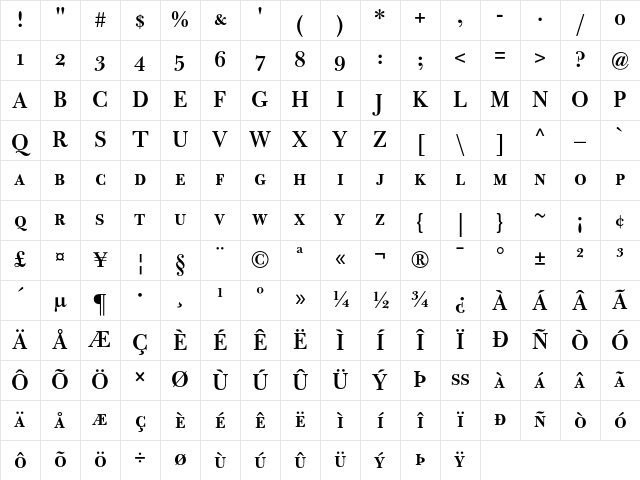
Complete Bulmer MT SemiBold Small Caps & OldStyle Figures glyph index. Displaying only characters natively supported by Bulmer MT SemiBold Small Caps & OldStyle Figures font.
Bulmer MT carries the refined structure of traditional serif typography, with bracketed terminals and considered proportions that communicate credibility and craft. Its bold stroke weight gives it real presence on the page.
Pro Tip: Use Bulmer MT for editorial body copy and considered headline work. Pair with a neutral sans for UI elements or captions to create a classic hierarchy.